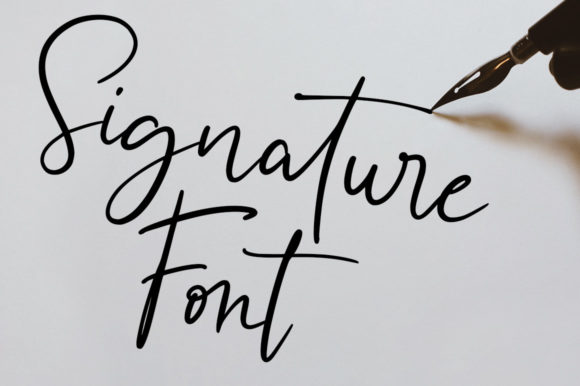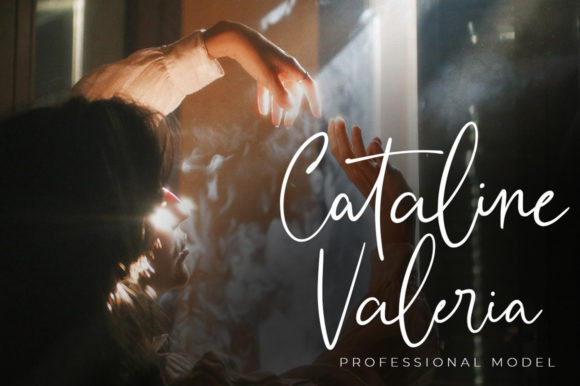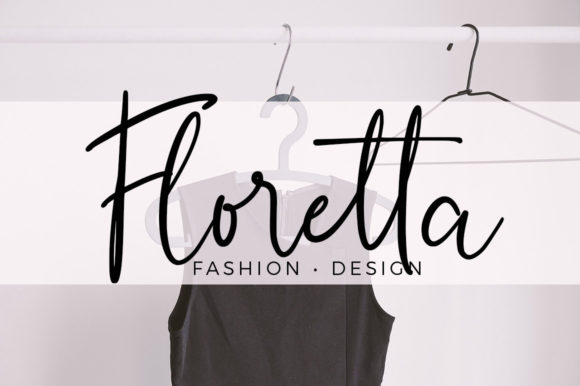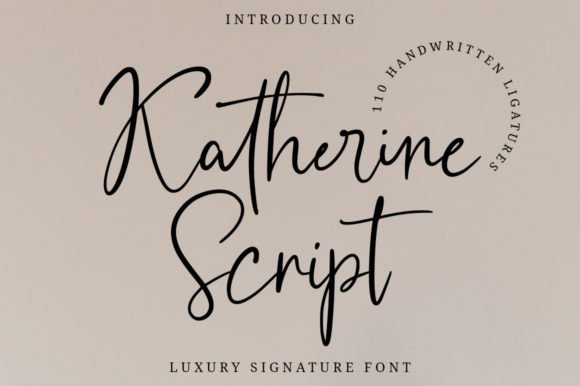
Introduction to Katherine Script Font
Katherine Script is a lovely and delicate script font that exudes elegance and class.
This font was particularly crafted for those who need a beautiful and refreshing look to their designs Katherine Script is PUA encoded which means you can access all of the glyphs and swashes with ease.